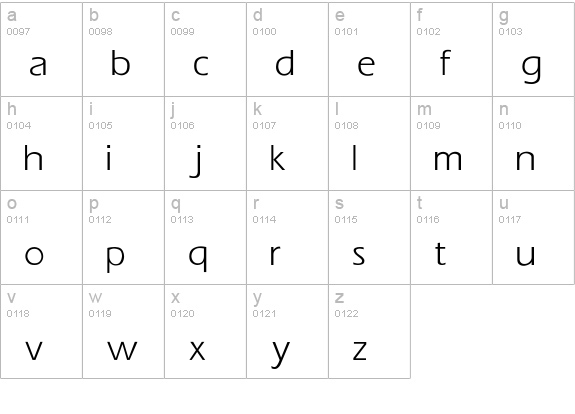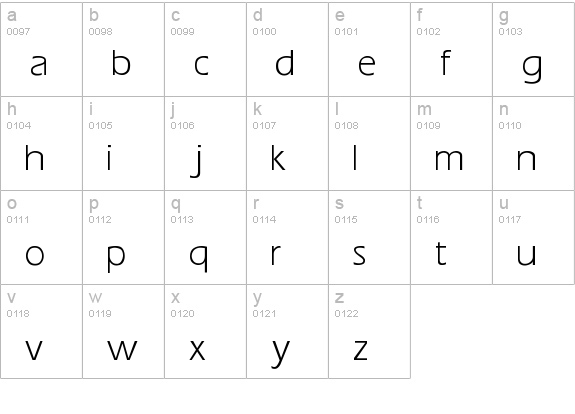
Eric font is a modern and versatile typeface that is perfect for a wide range of design projects. With its clean lines and elegant curves, Eric font exudes a sense of sophistication and style. This font is ideal for creating eye-catching logos, posters, invitations, and more. Its timeless appeal makes it suitable for both digital and print designs. The best part about Eric font is that it is completely free to download at FontsMarket.com. This means that you can easily access this high-quality font without any cost. Whether you are a professional designer or just starting out, Eric font is a valuable addition to your font collection. Download Eric font today and elevate your designs with its sleek and modern aesthetic.